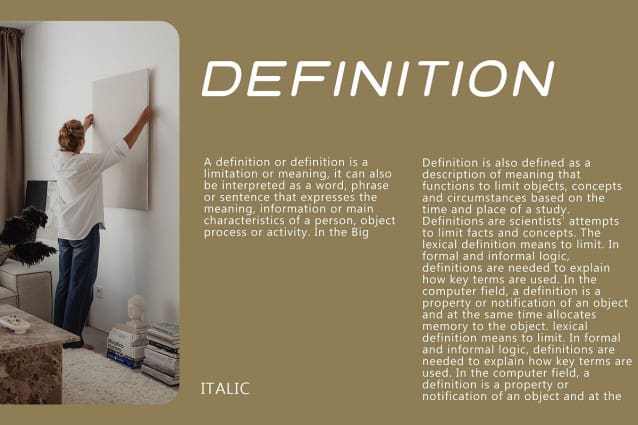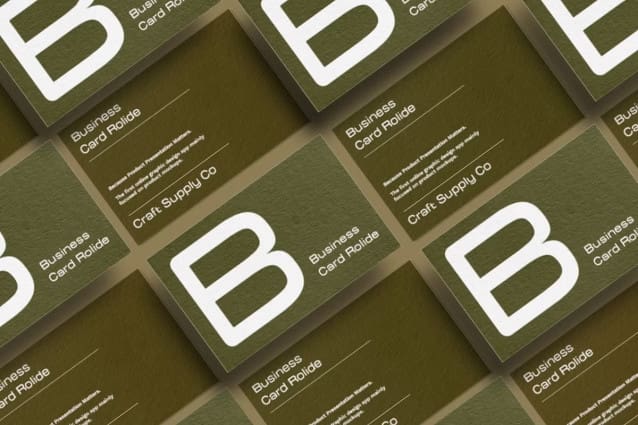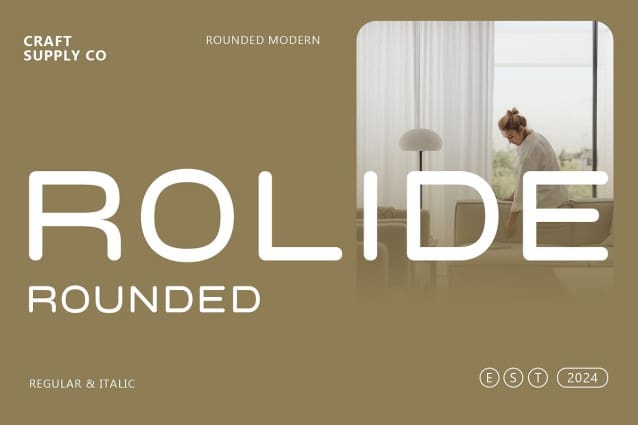
Rolide Rounded Font
Rolide Rounded Font: Modernity in Subtlety.  Low-Contrast Sophistication Rolide Rounded features a low-contrast sans serif design, offering a subtle yet refined appearance suitable for various design contexts.
Contemporary Vibes Embodying modernity, This font exudes a contemporary feel, making it an ideal choice for projects seeking a sleek and up-to-date aesthetic.
Soft, Rounded Strokes With its rounded strokes, This font brings a sense of warmth and approachability to text, enhancing readability while maintaining a modern edge.
Versatile Application From web interfaces to branding materials, Rolide Rounded’s versatility shines through, seamlessly blending into both digital and print environments with its balanced design. Whether it’s used for website headers, social media graphics, business cards, or product packaging, this font adapts effortlessly to various platforms and mediums, ensuring consistency and coherence across all touchpoints of a brand’s visual identity. Its adaptable nature makes it a go-to choice for designers seeking a reliable and versatile typeface for their projects.
Modern Simplicity This font epitomizes modern simplicity with its low-contrast, rounded-stroke sans serif design. Perfect for contemporary projects, it offers a subtle yet impactful typographic solution that caters to a wide range of design needs.